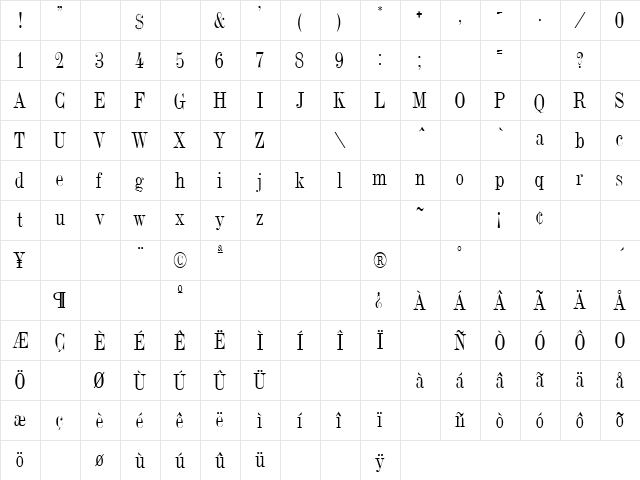
Toys In The Attic 2 Regular
Design Context for Toys In The Attic 2 Typeface
Toys In The Attic 2 is a composed and adaptable typeface that performs quietly and consistently across a wide range of design contexts.